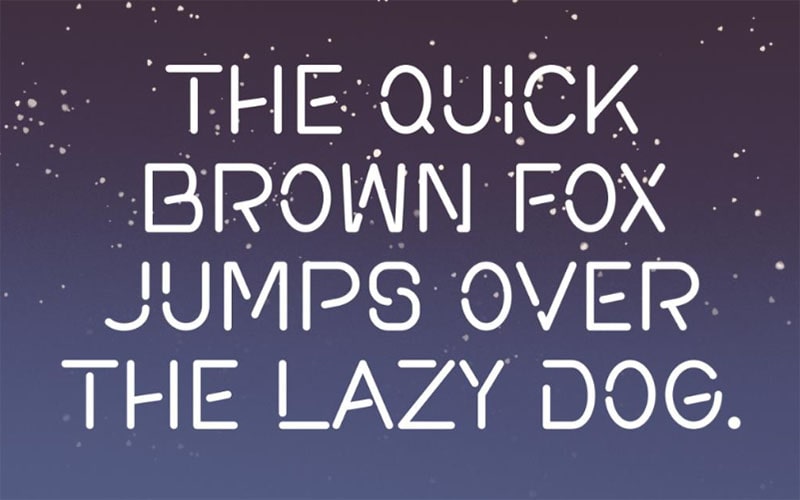
Space Stacked Font is a sleek and innovative typeface that captures the essence of modernity and futuristic design. Created by the talented designer Pian45.
This font is characterized by its geometric shapes and stacked letterforms, making it an ideal choice for designers looking to infuse their projects with a cutting-edge aesthetic.
Designer known for his ability to blend modern design principles with unique typographic styles, Pian45 has crafted Space Stacked to reflect the forward-thinking and dynamic nature of contemporary design.
The font includes a comprehensive set of characters, including uppercase and lowercase letters, numerals, punctuation marks, and special symbols, offering versatility for different design applications.
Space Stacked Font
Space Stacked Font offers a single, highly stylized form that emphasizes clean lines, geometric shapes, and a stacked layout. Ideal for futuristic brands and tech companies looking to convey innovation and modernity.
Despite its highly stylized nature, Space Stacked maintains a high level of legibility, making it suitable for various design contexts without sacrificing readability.